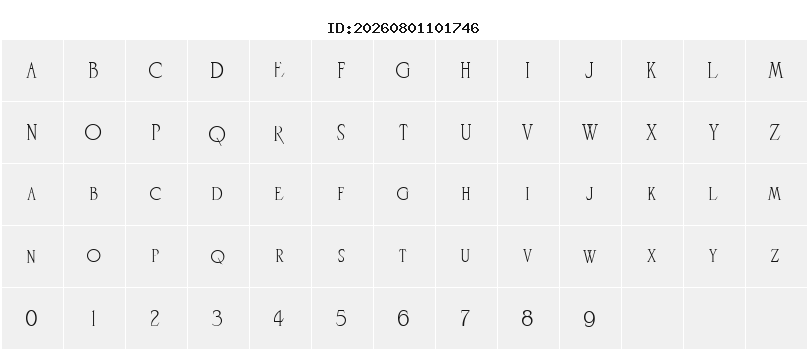
LHF Stetson Preview
• Font Name: LHF Stetson
• Full Font Name: LHF Stetson
About LHF Stetson.ttf
LHF Stetson.ttf is a modern, elegant sans-serif font designed for ultimate readability and visual harmony. Perfect for branding, headlines, web design, and print materials.